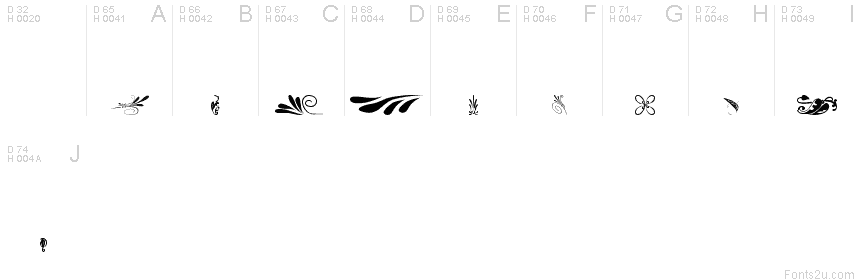
KR Simple Fleur 6
KR Simple Fleur 6 by Kat Rakos is a free dingbat font of small fleur ornaments and simple decorative marks. The shapes stay spare and orderly, giving the set a compact, understated page-flourish feel.
It fits wedding invitations, menu dividers, scrapbook pages, certificate borders, and label accents, especially when a layout needs a small ornamental break. Use it for end pieces, separators, and corner details that finish a page without crowding the text.